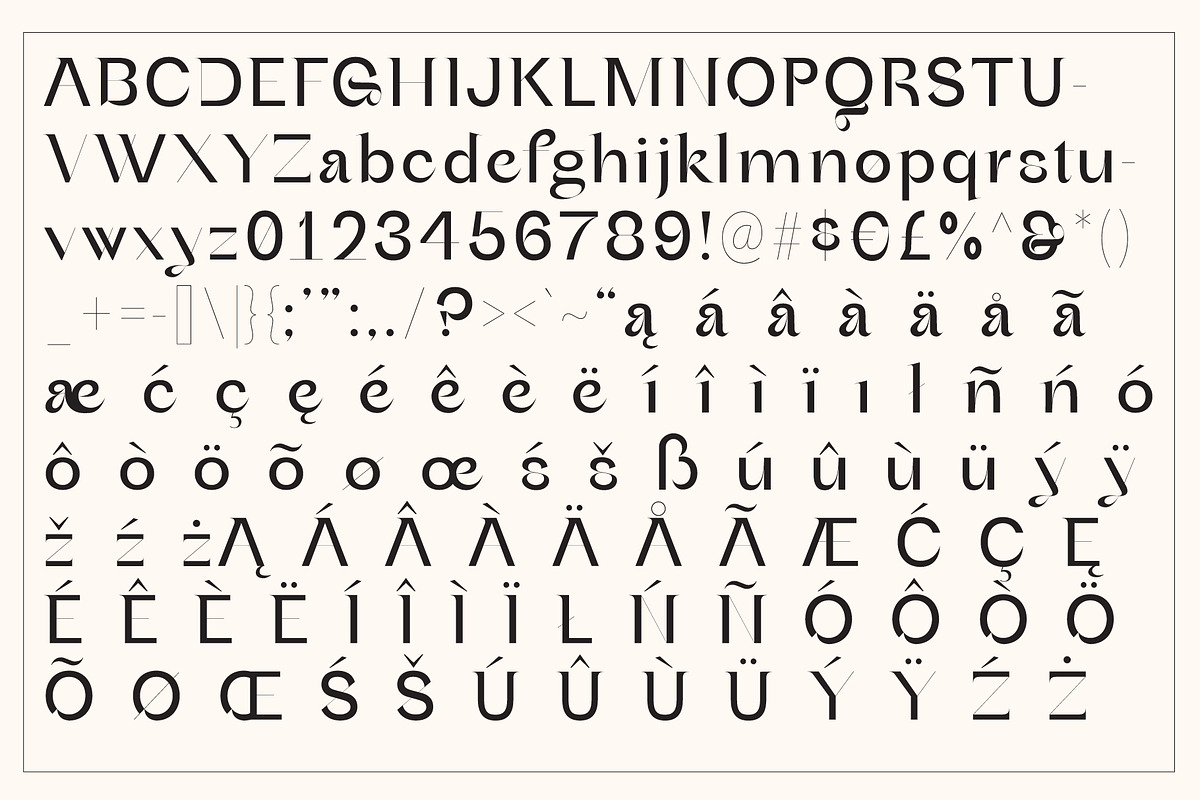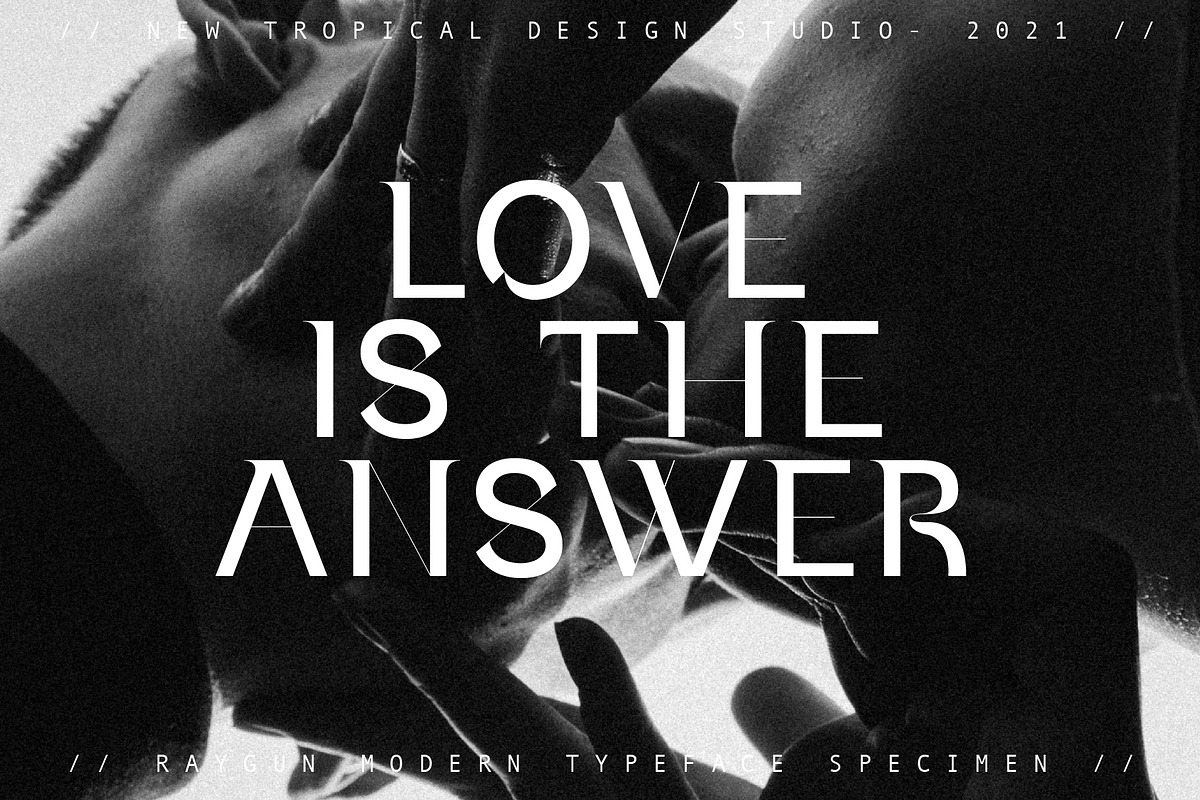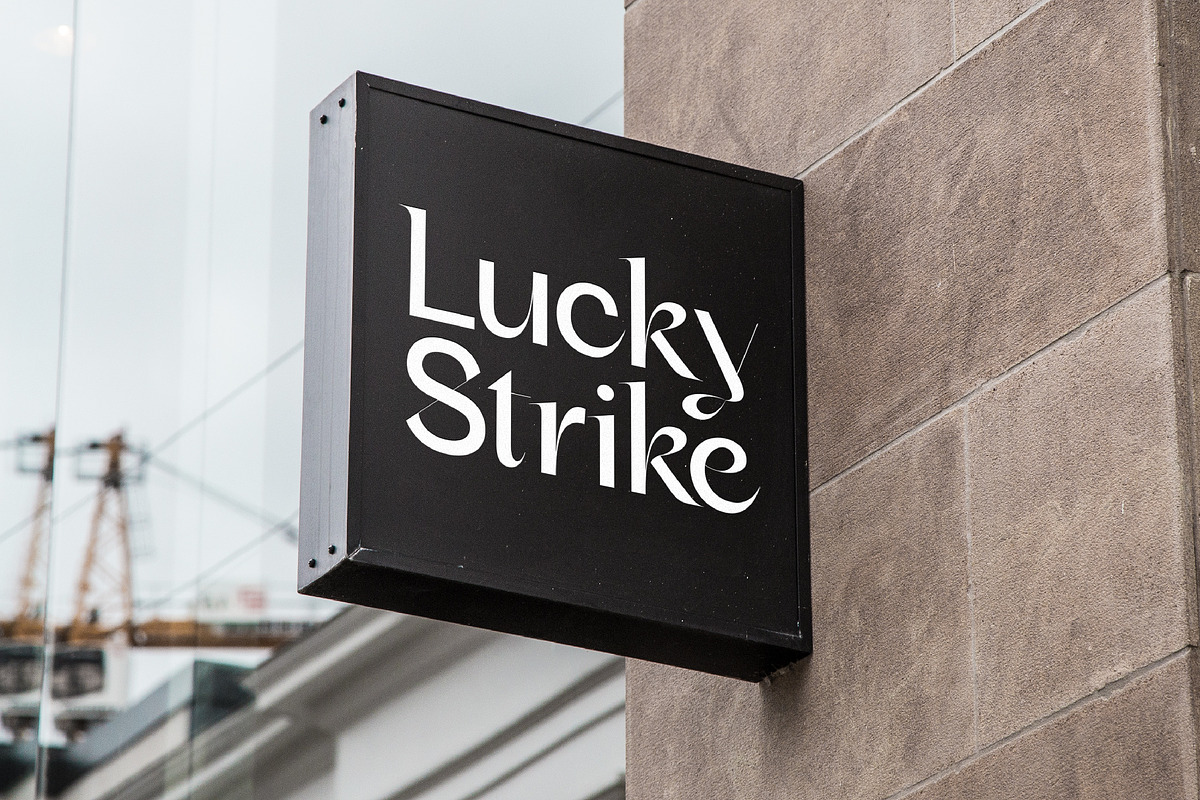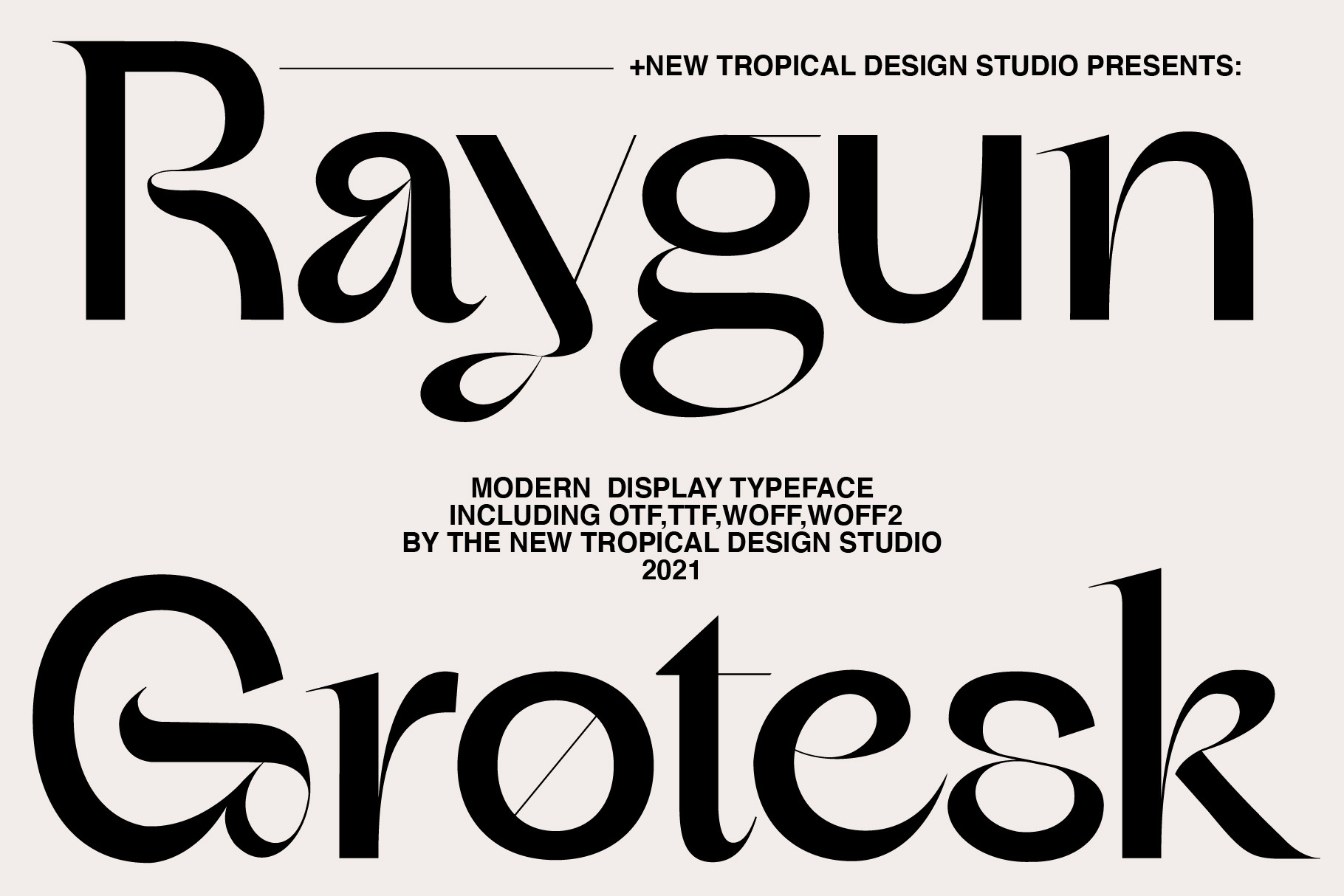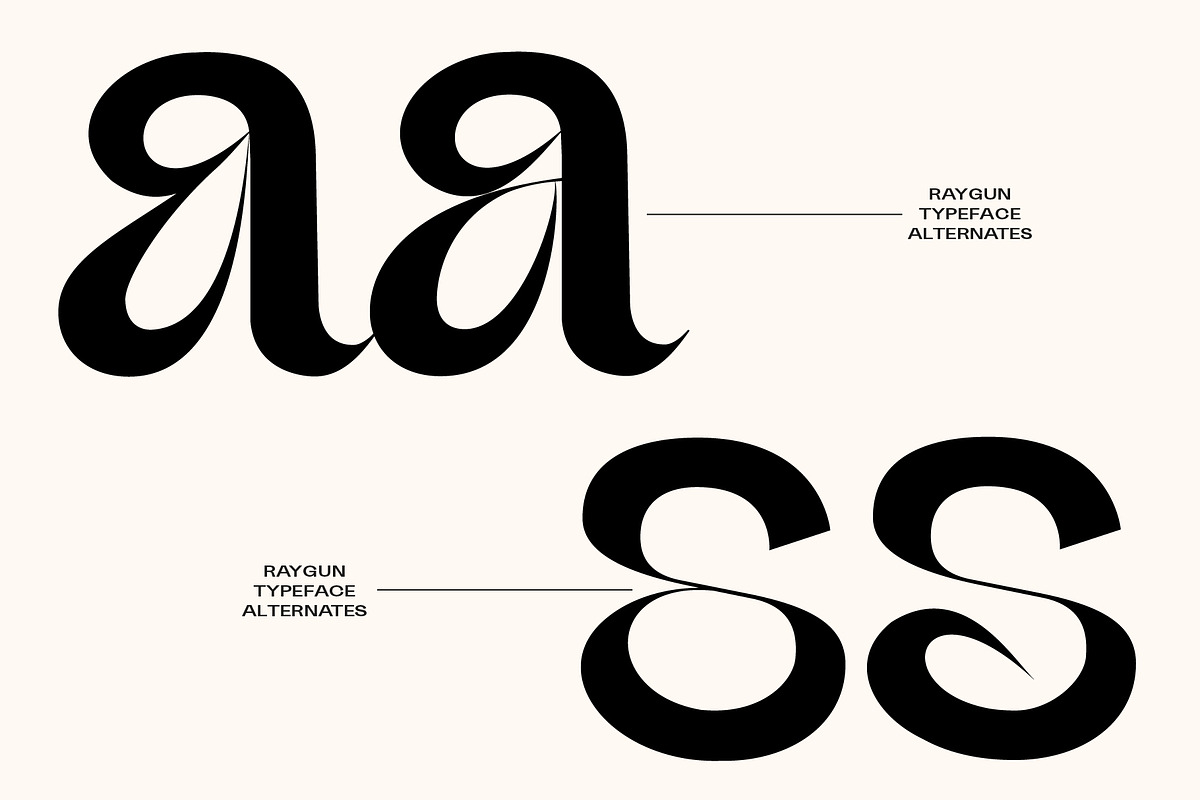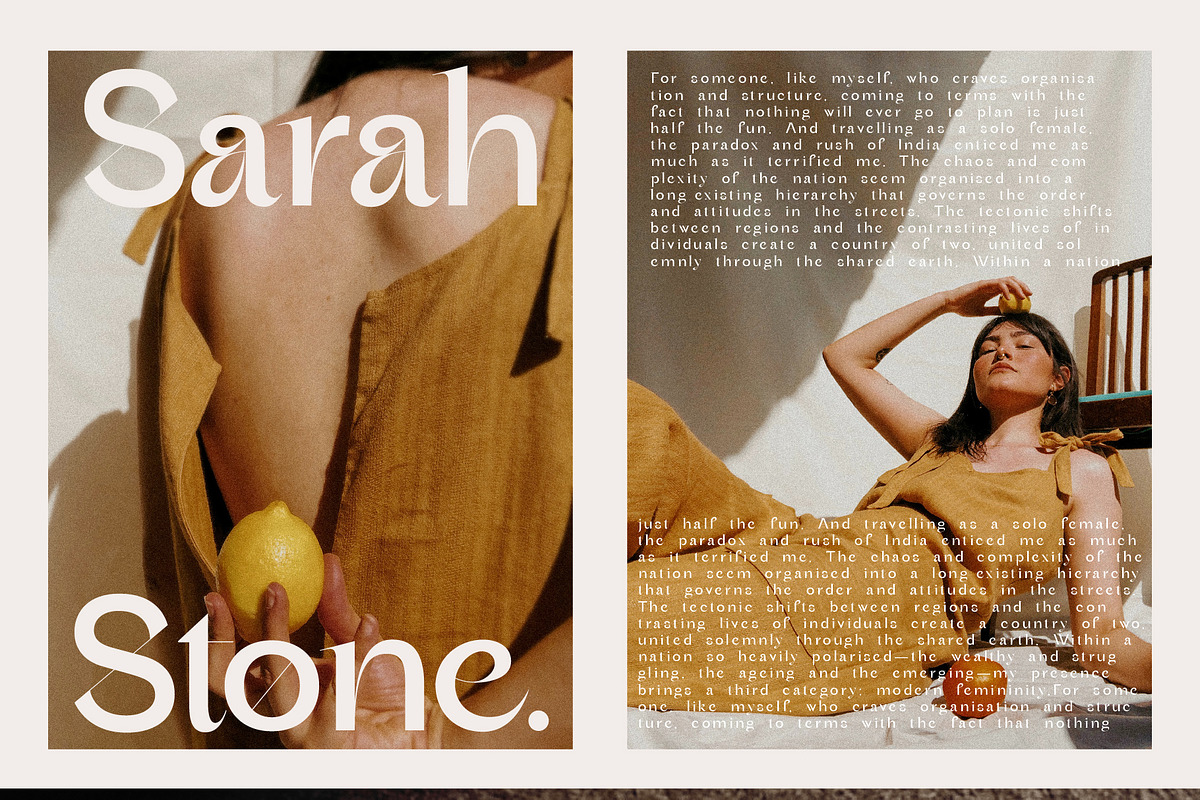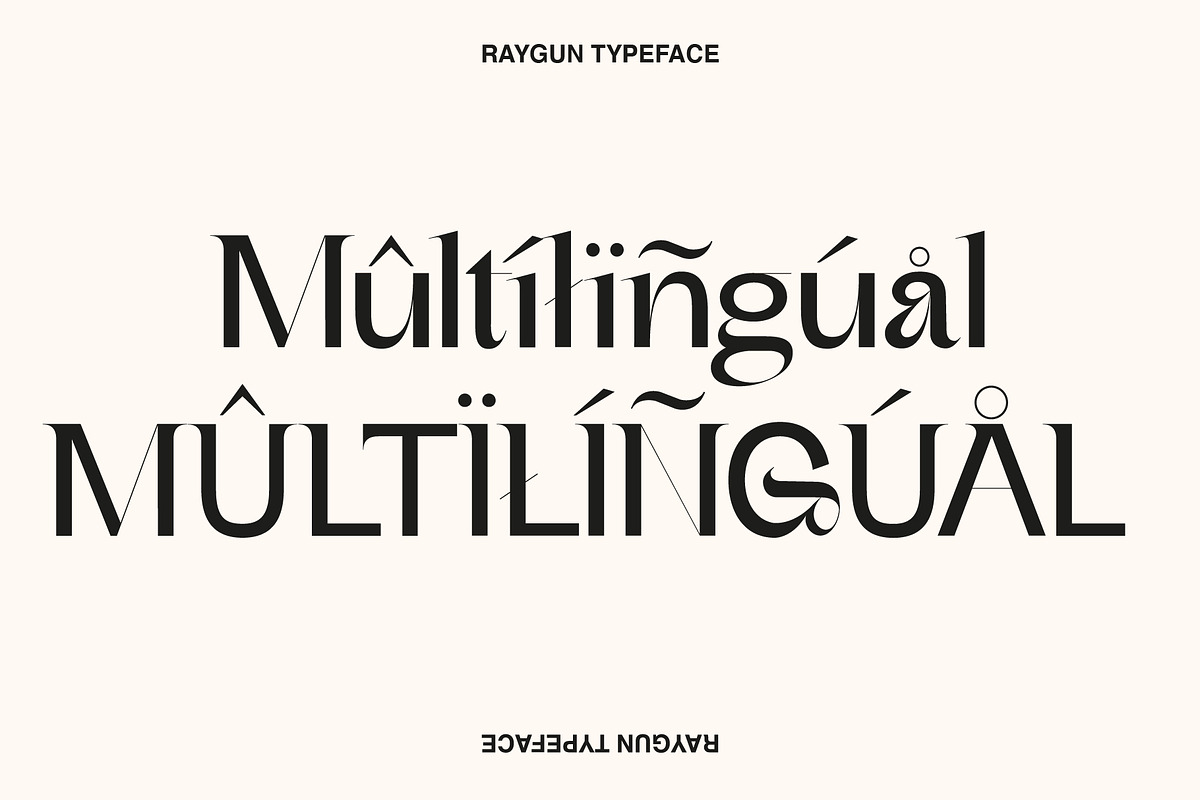
RAYGUN - Modern Typeface
Raygun is a modern take on a Grotesk style typeface. I created a Grotesk sans style but with added contrast and selective serifs to make a contemporary and memorable font. Sharp points mix with smooth curves creating unique glyphs that are perfect for interesting wordmarks and typographic posters.
- Uppercase, Lowercase, numbers, punctuation, alternates
- Multilingual support ( including polish )